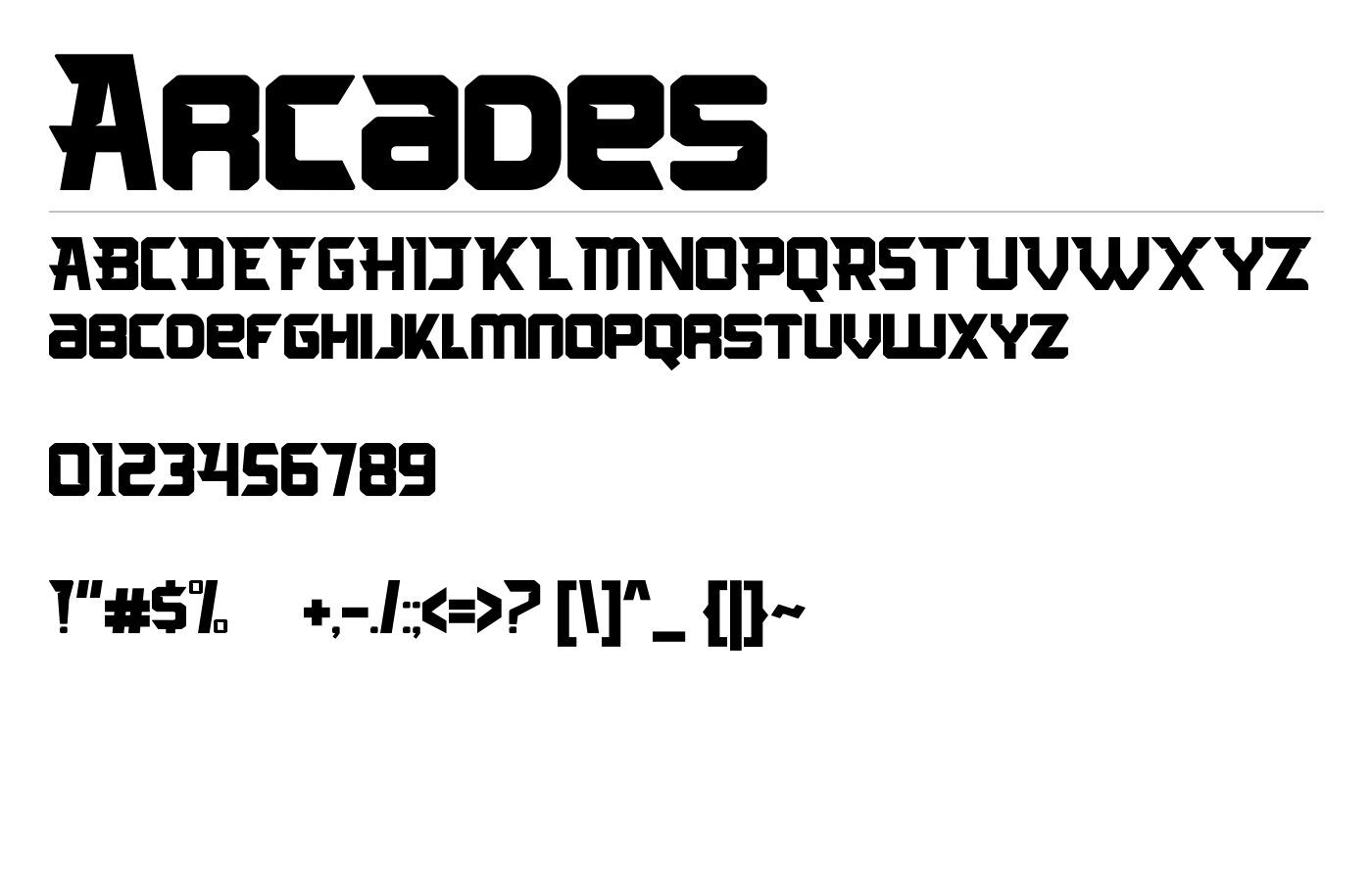
Arcades is a bold, geometric sans serif font with a distinctive blocky style that evokes a retro, arcade-game feel. Its sharp angles and strong, stiff letterforms give it a futuristic yet nostalgic vibe, making it ideal for headlines, logos, and designs aiming to capture a tech-savvy or vintage gaming aesthetic. This font works best where a strong visual impact and playful personality are needed.
Arcades Font
About Arcades Font